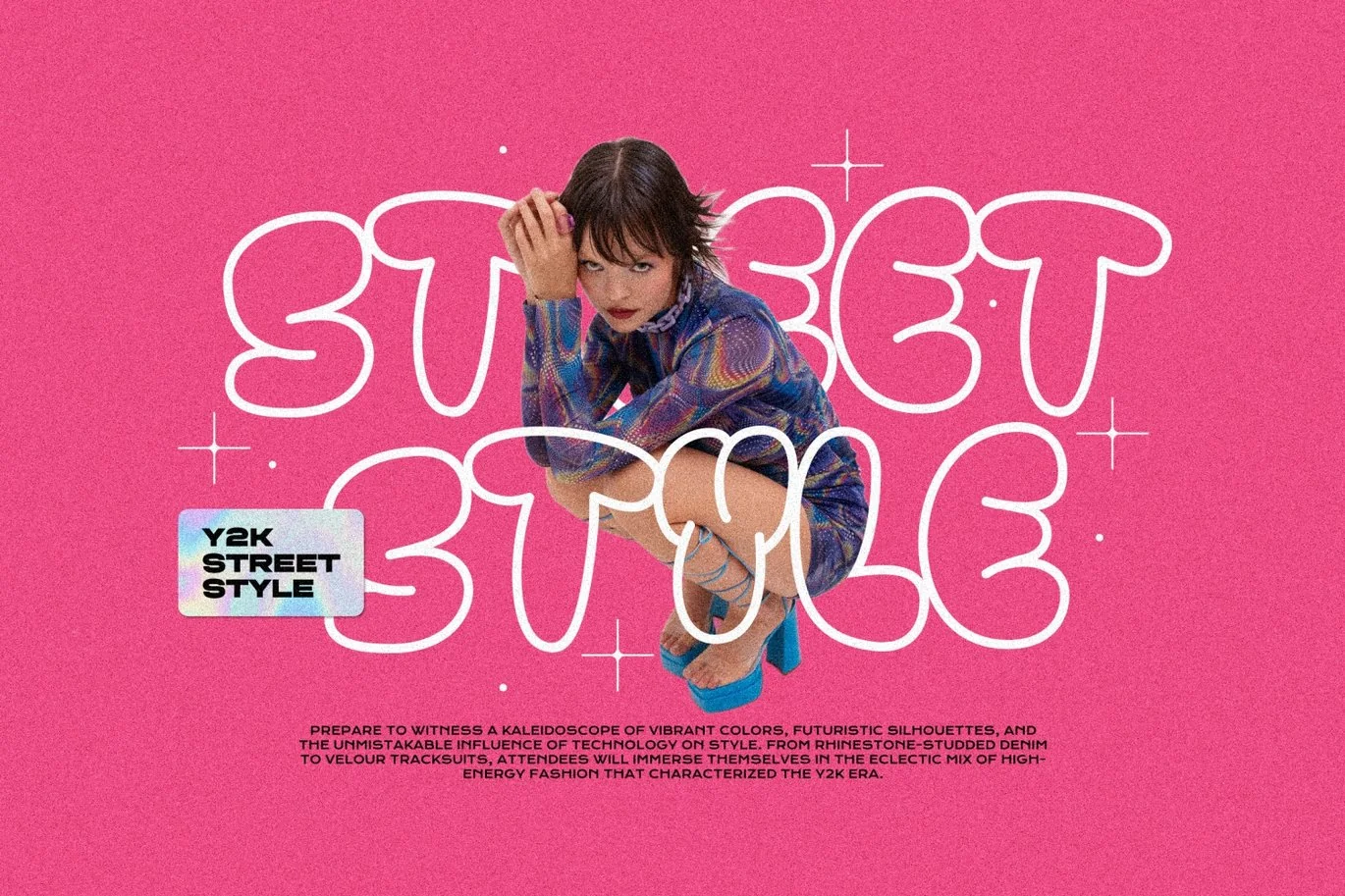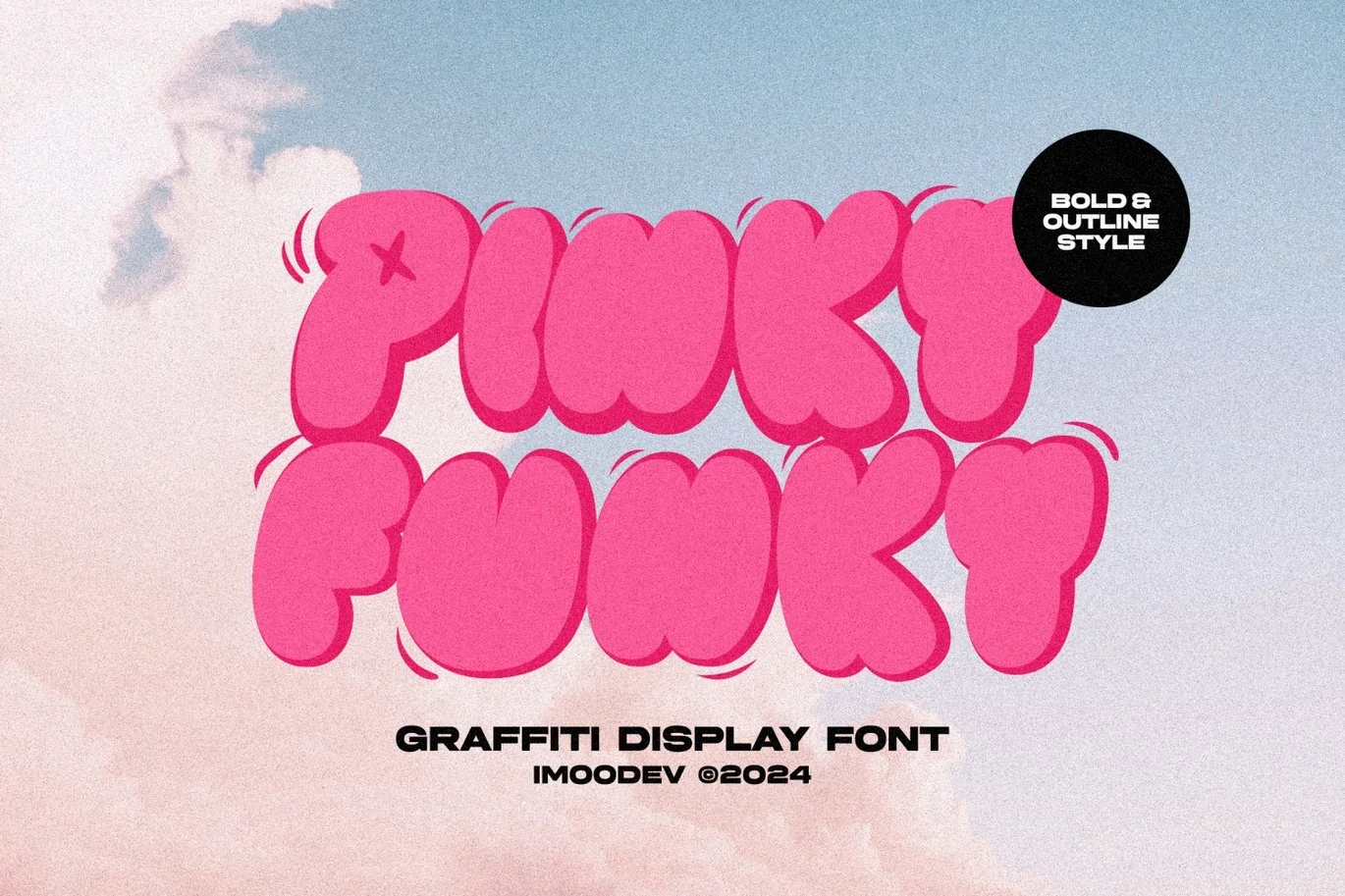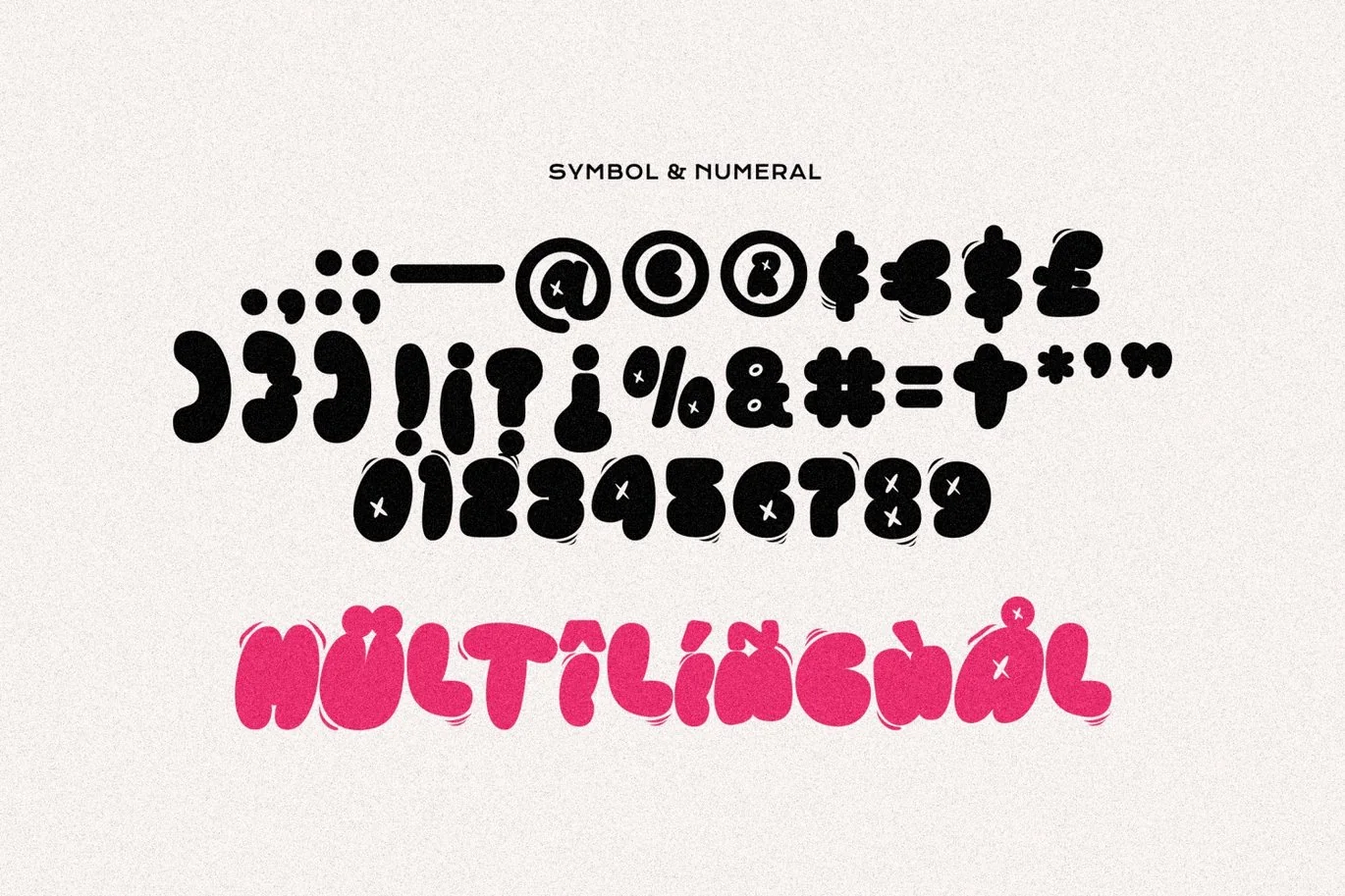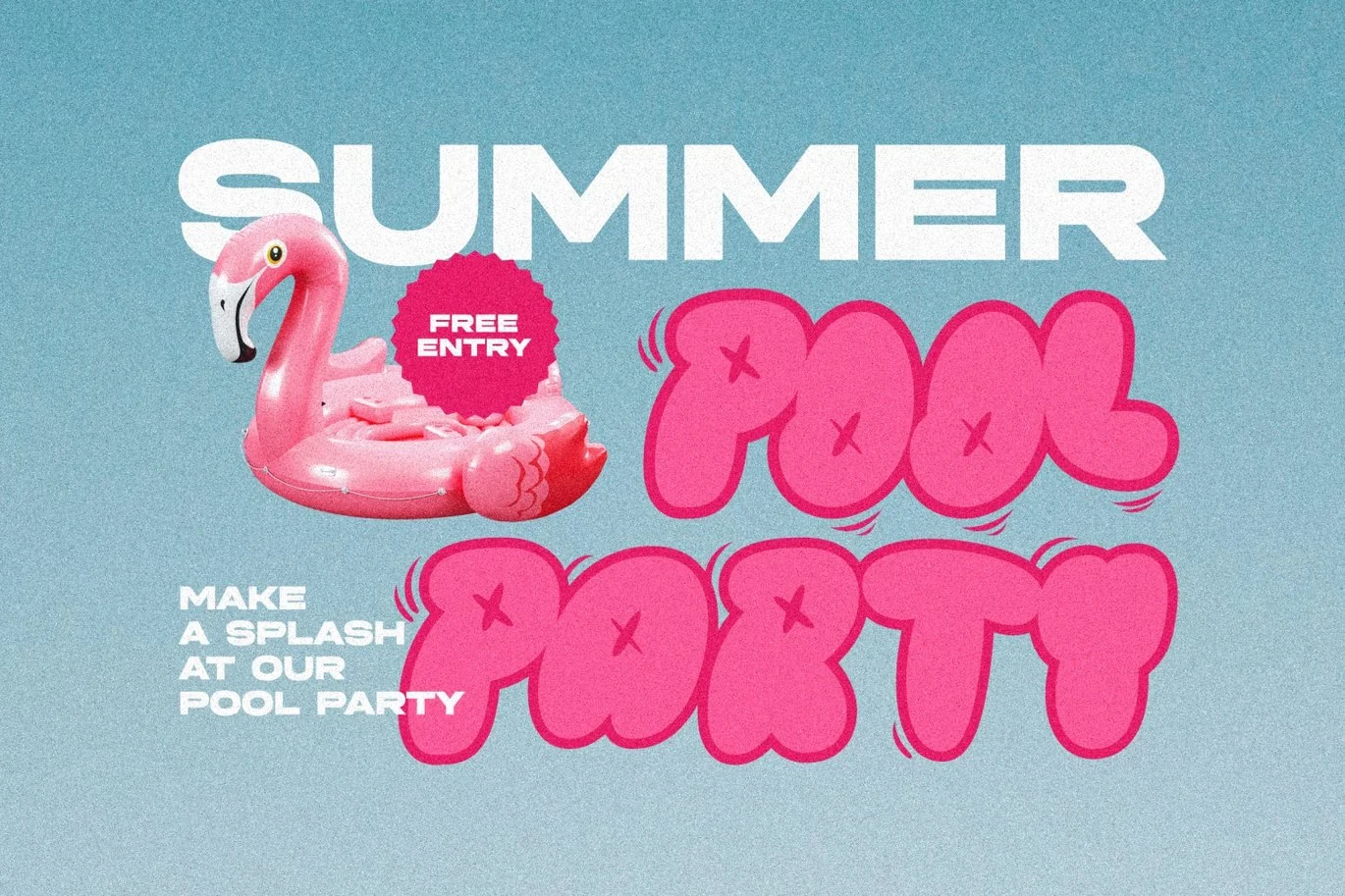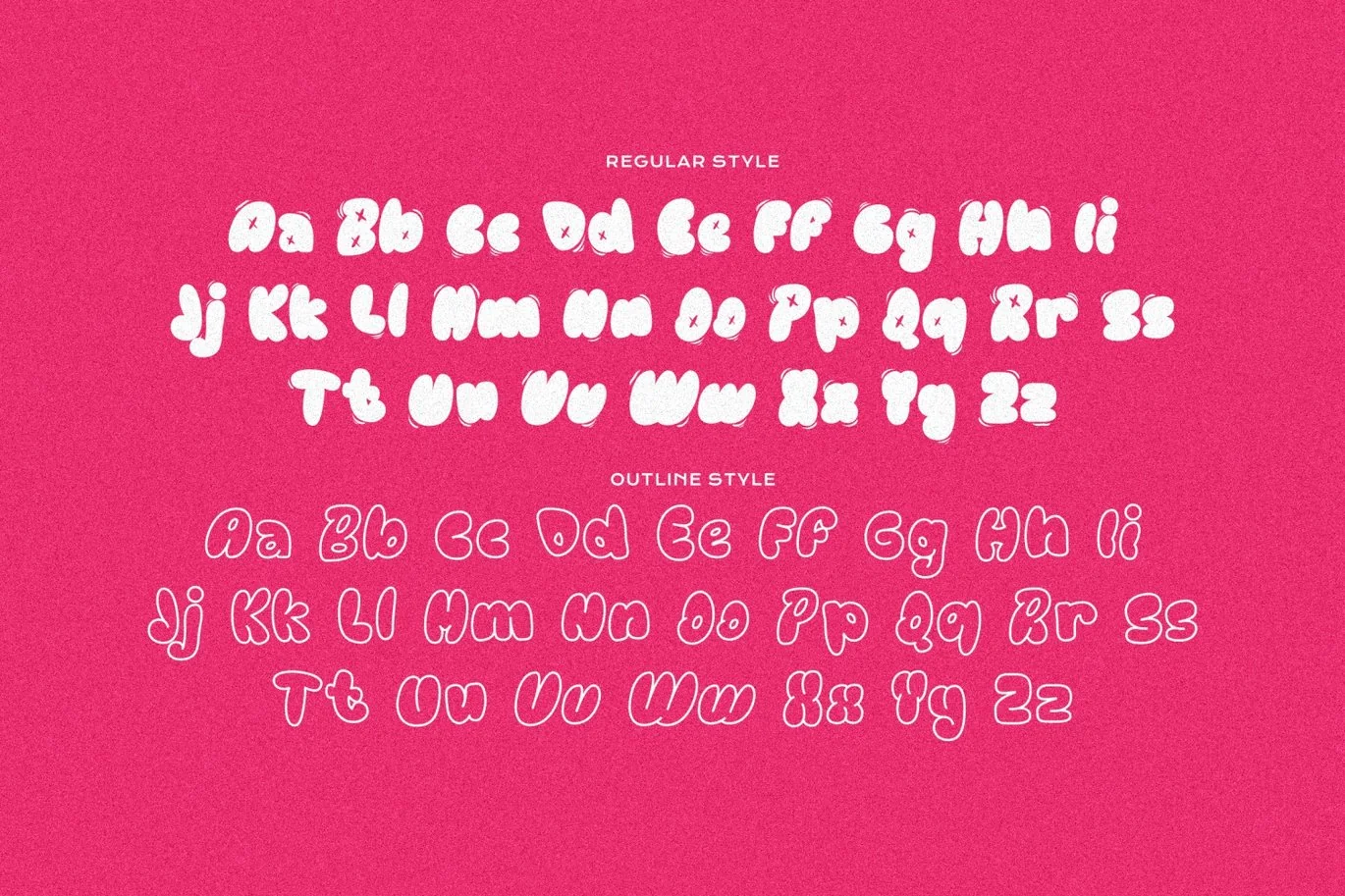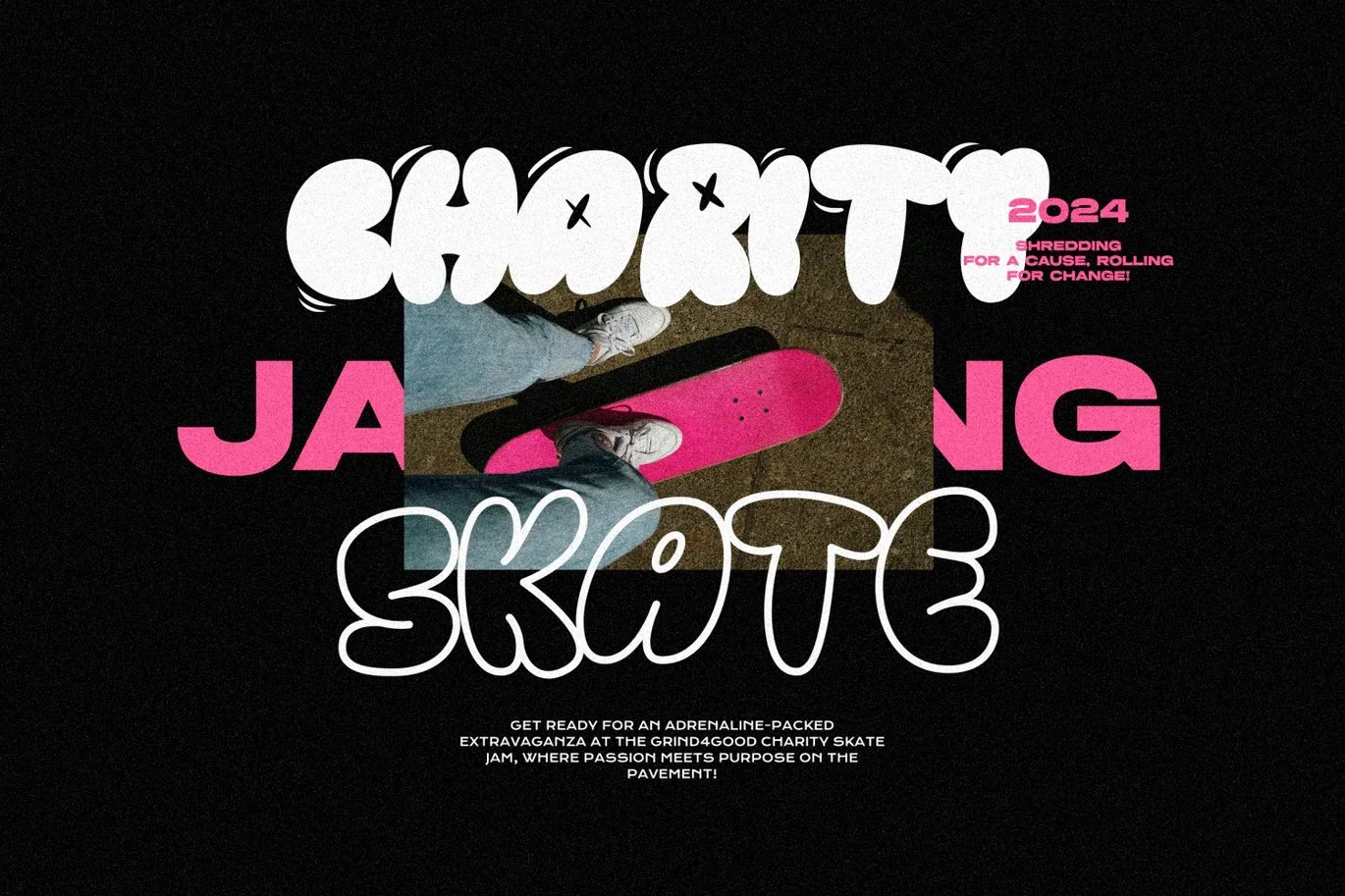
Pinky Funky – Graffiti Display Font
Pinky Funky is a graffiti display font that has smooth curves and a visual style a can embodies charm and elegance in every lettering, making your work look stunning and attractive.
A versatile font that works in both uppercase and lowercase sizes, suitable for a wide variety of projects such as a display font for headings, logo fonts, invitations, branding, book covers, magazine layouts, card, product packaging, product mockup, mugs, posters, labels, editorials, art deco, and any type of advertising purpose.